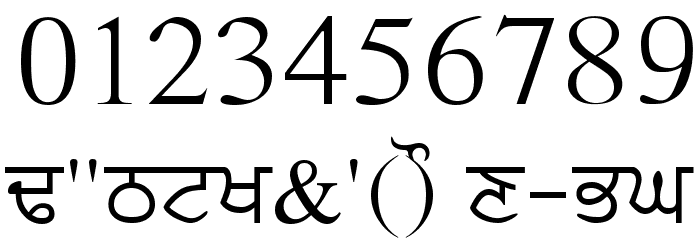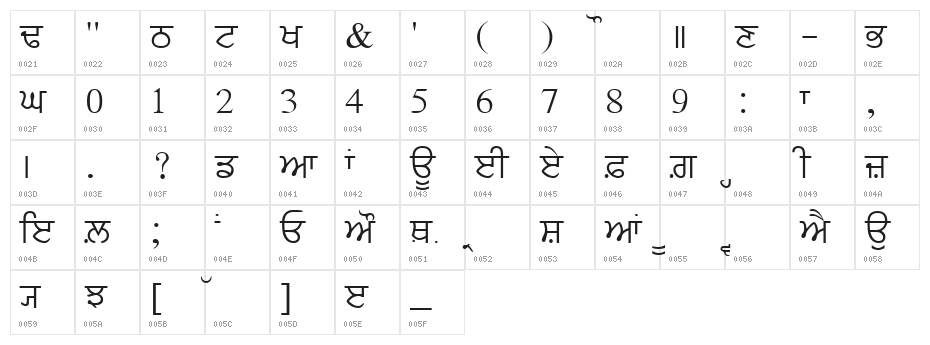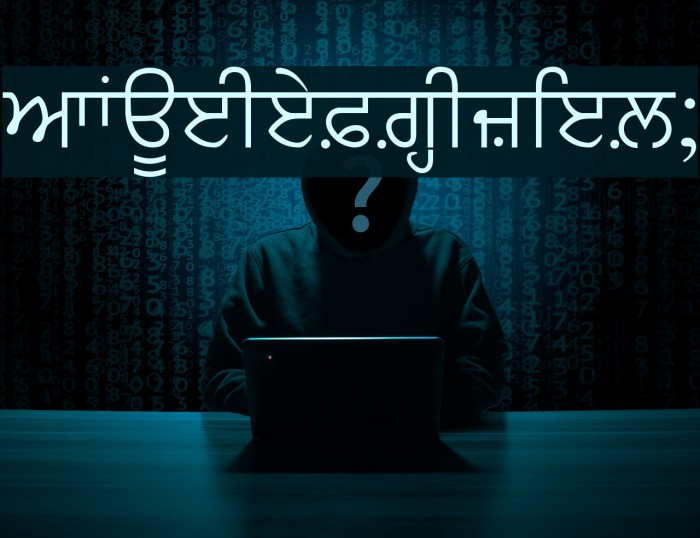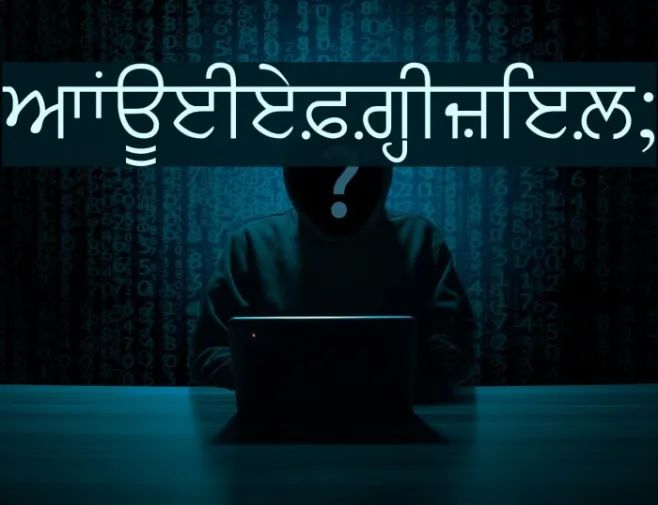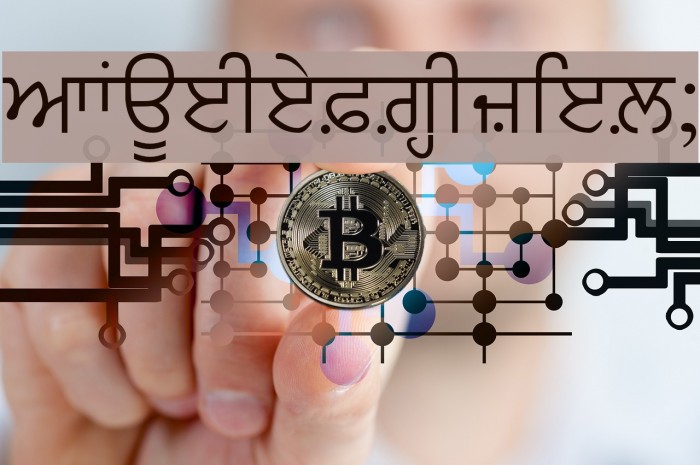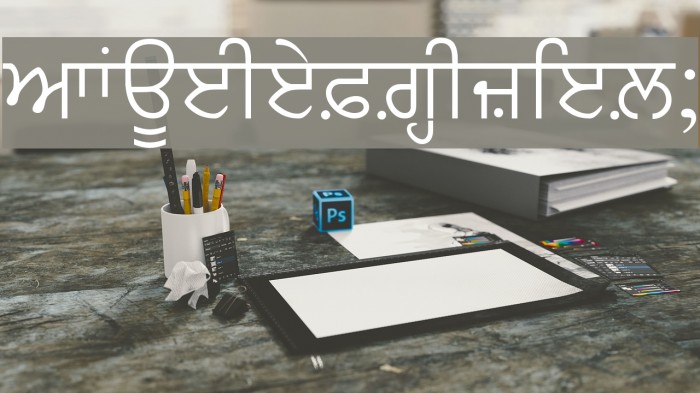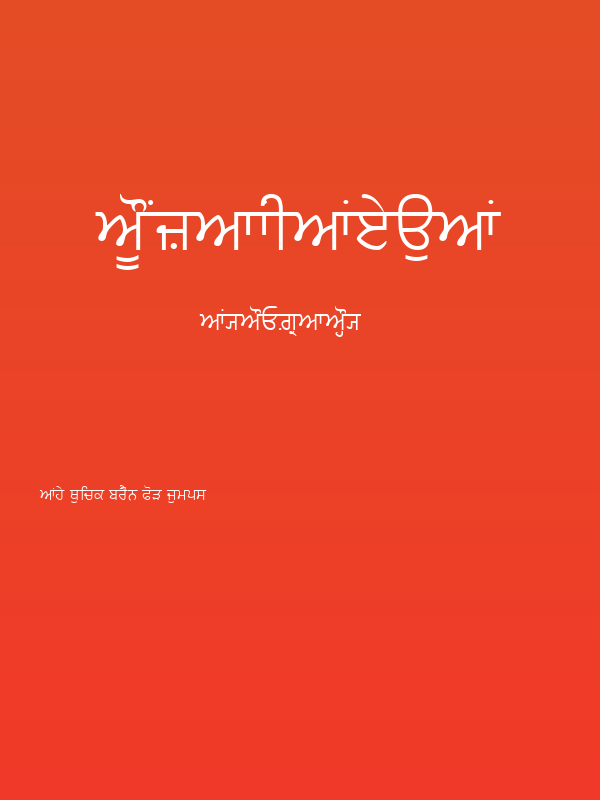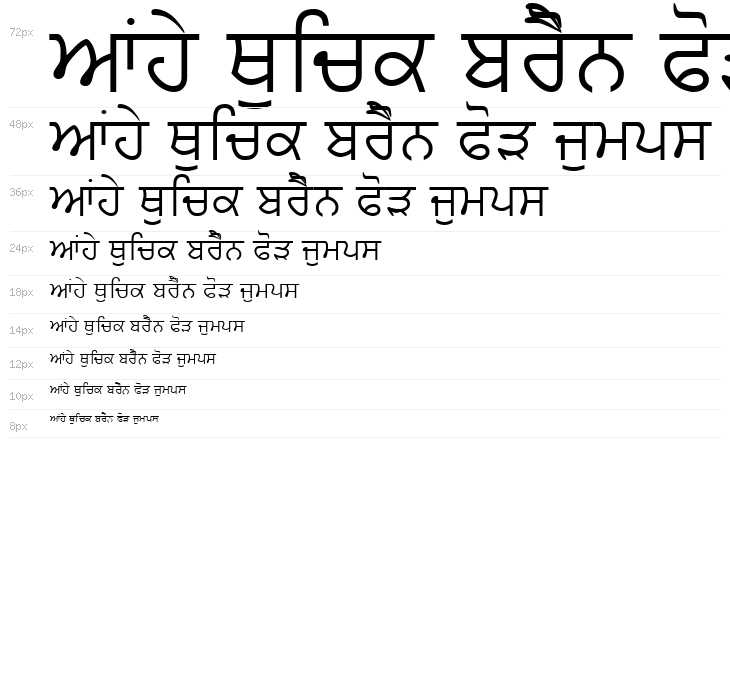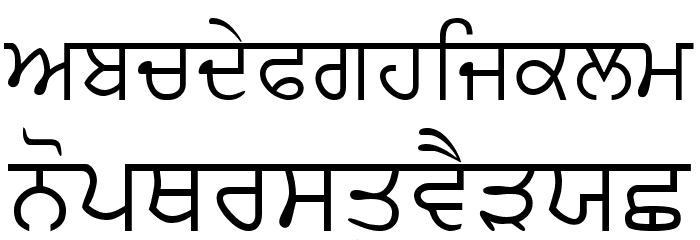
PunjabiText Font
PunjabiText Description
This font features a traditional Gurmukhi script style, characterized by its elegant and flowing lines. The characters are well-defined with a balanced stroke weight, providing clarity and readability. The numerals are distinct and match the overall aesthetic of the script. The special characters are seamlessly integrated, maintaining the font's cohesive appearance. This font is suitable for both formal and informal contexts, offering versatility in its application.
| Use Case | Headlines, Body text, Educational materials |
| Proposed Projects | Ideal for cultural publications, educational materials, signage, and digital content in Punjabi. |